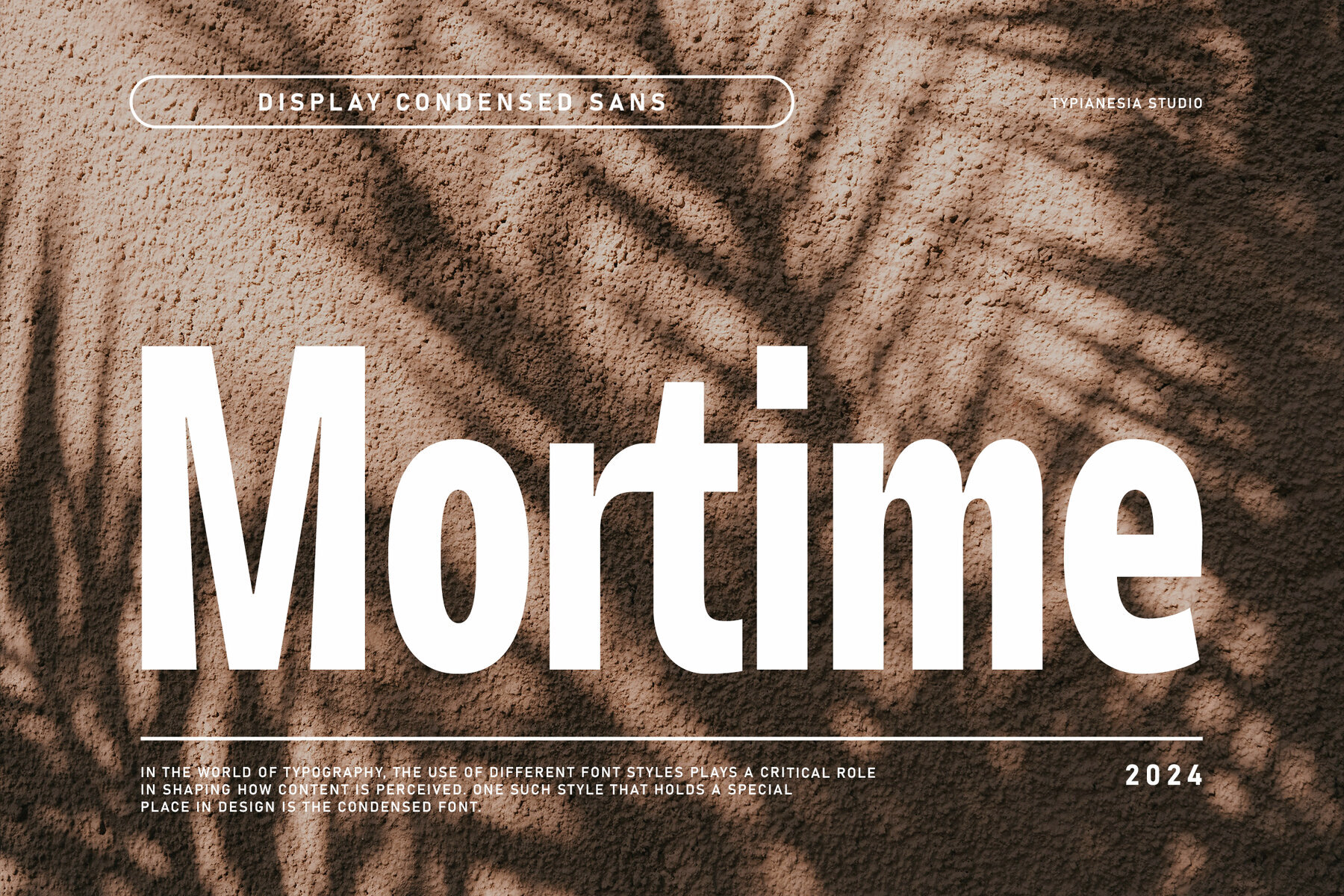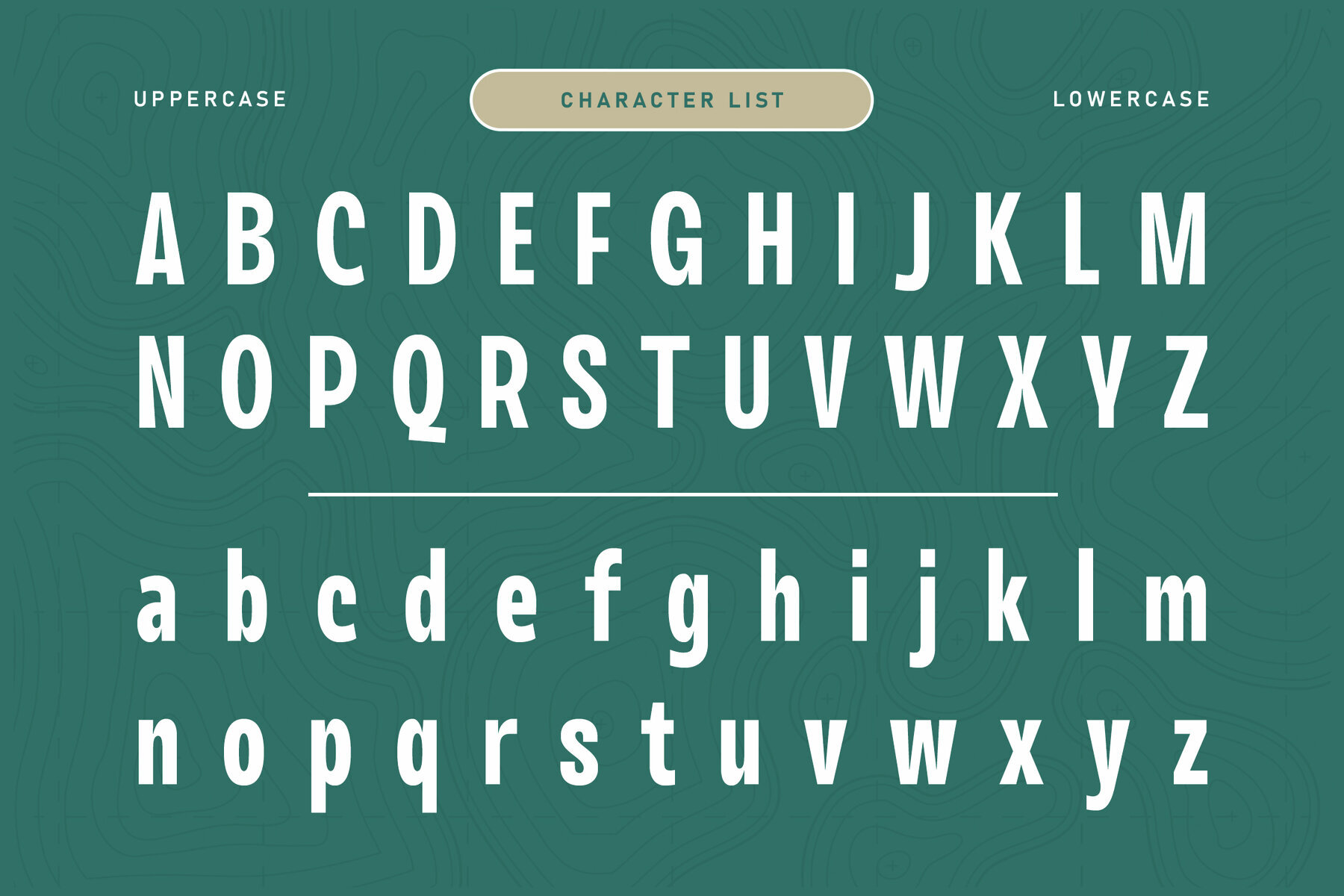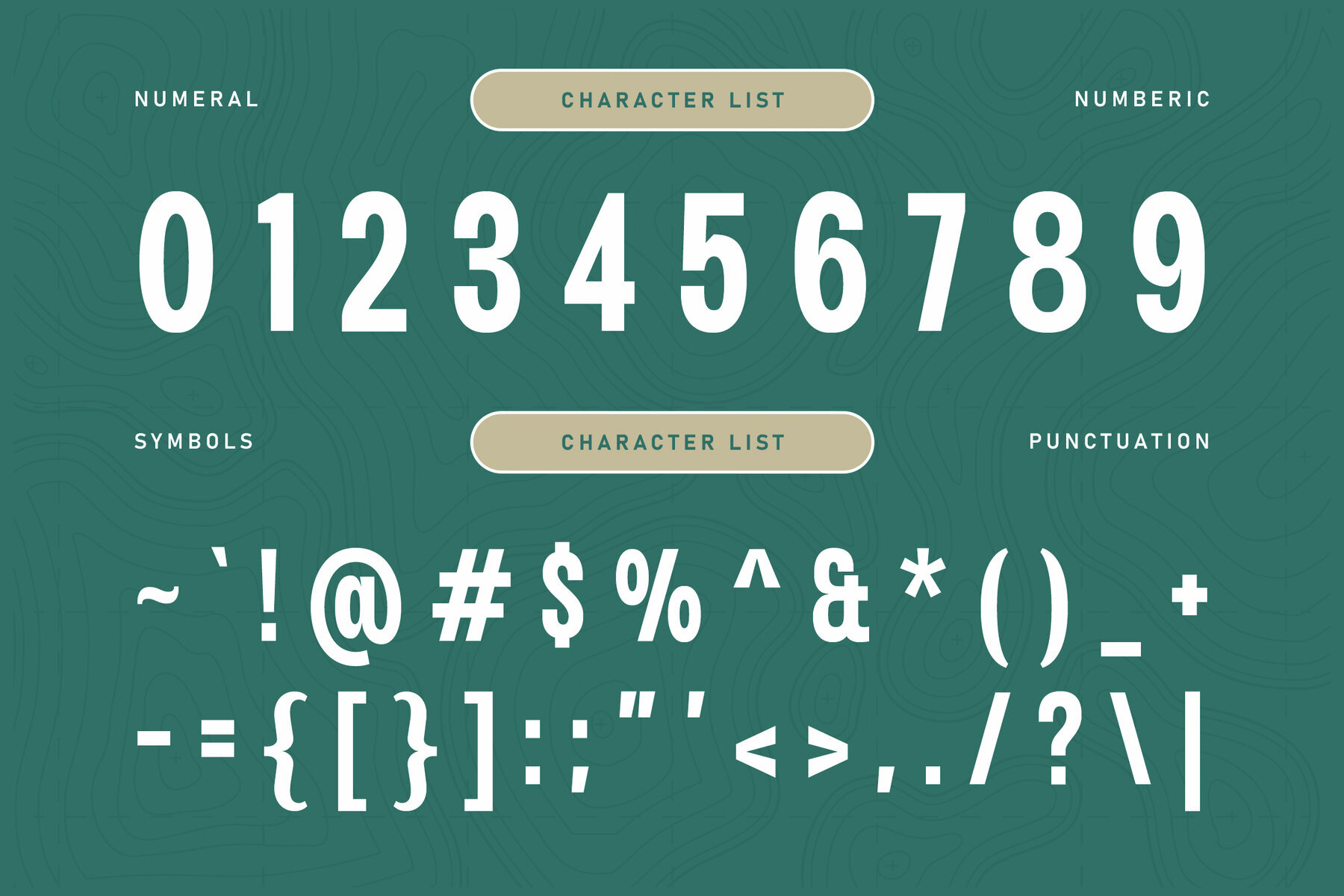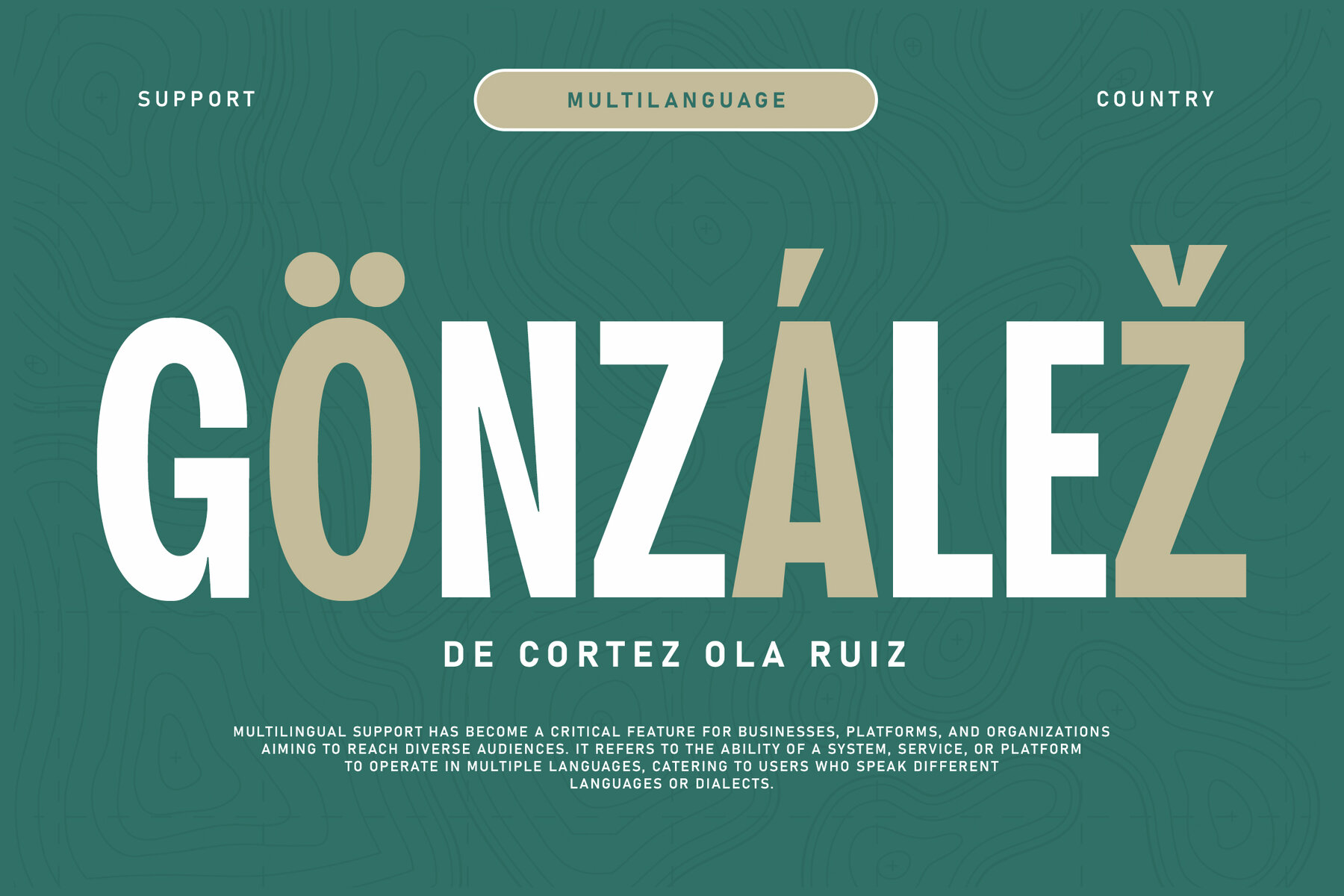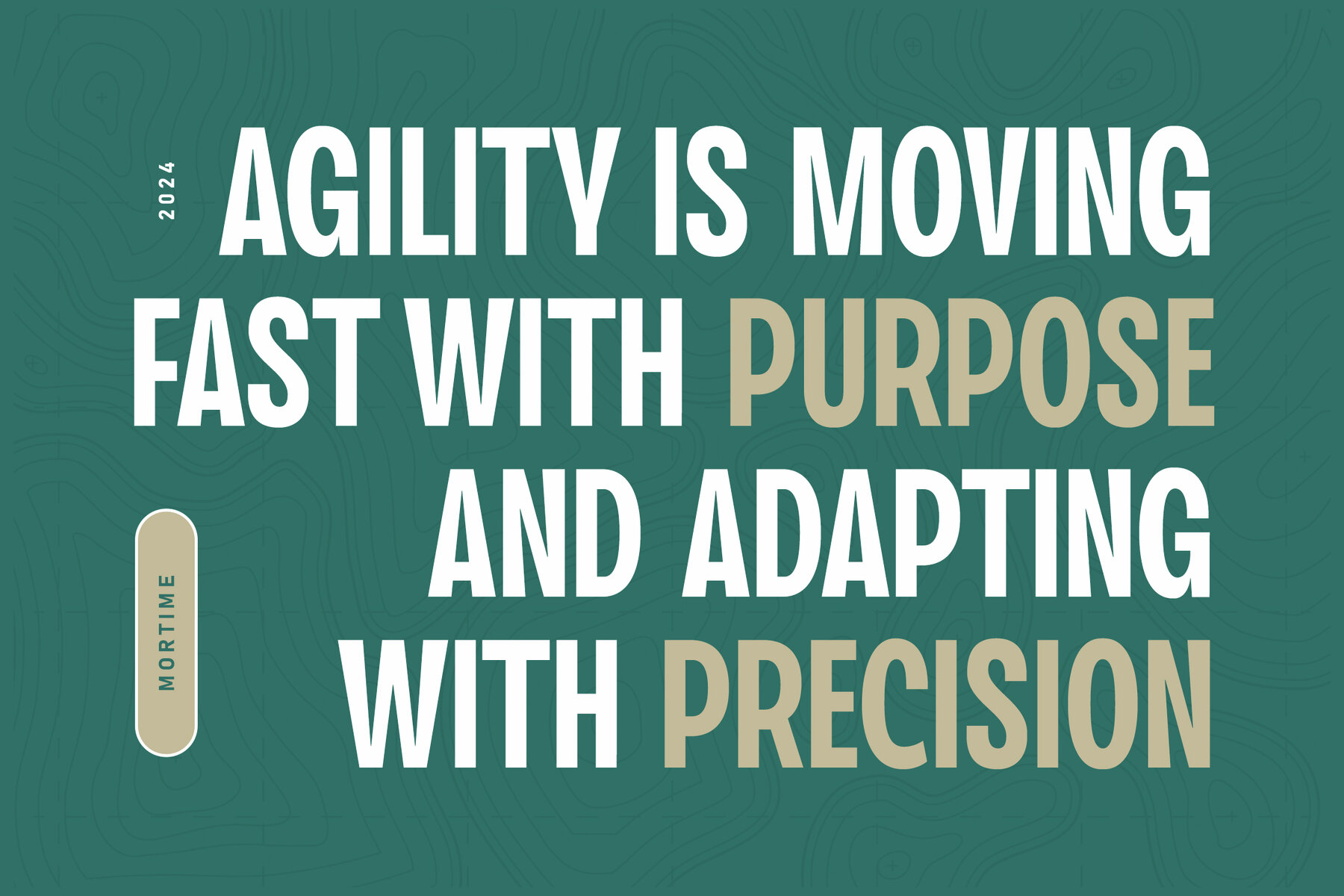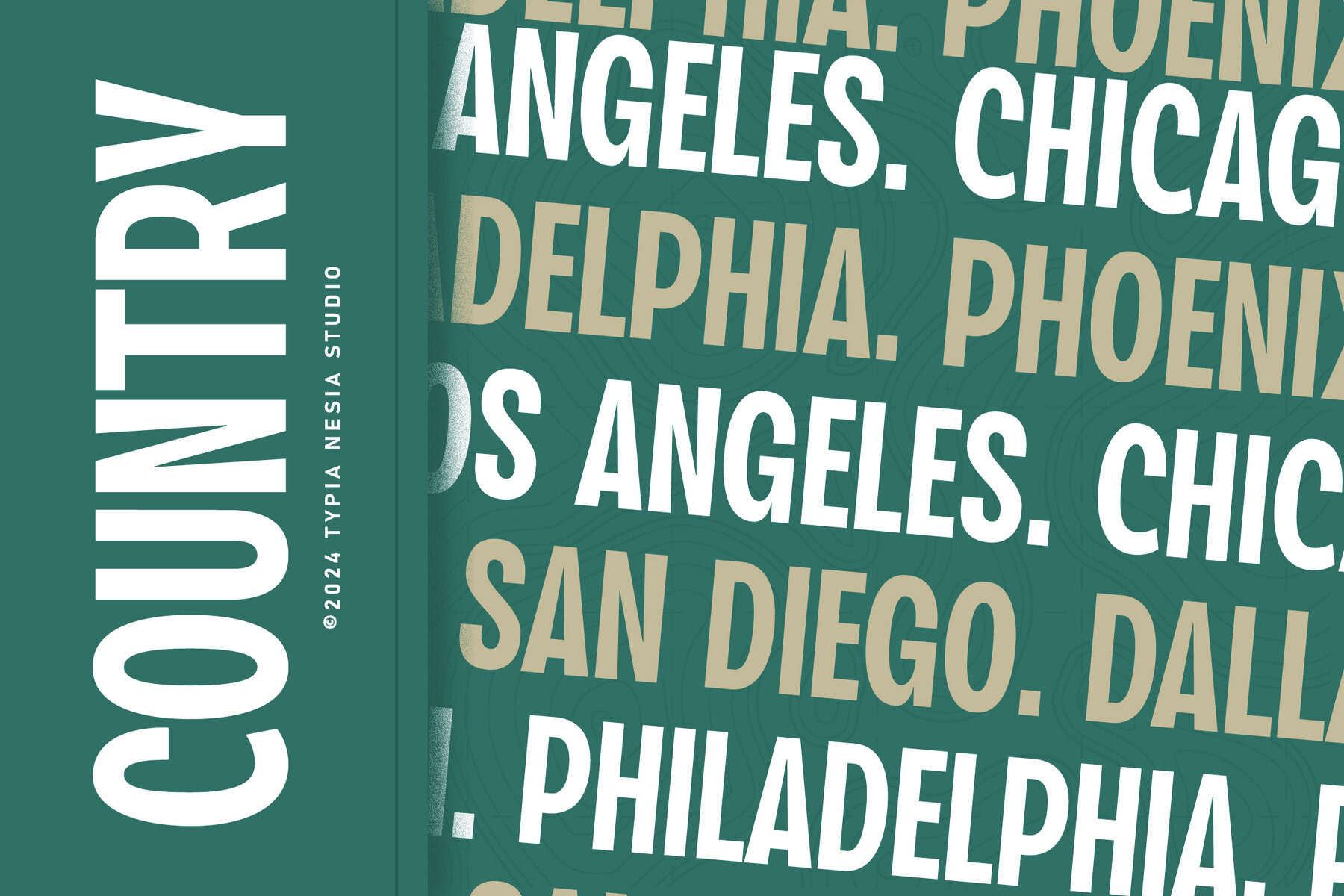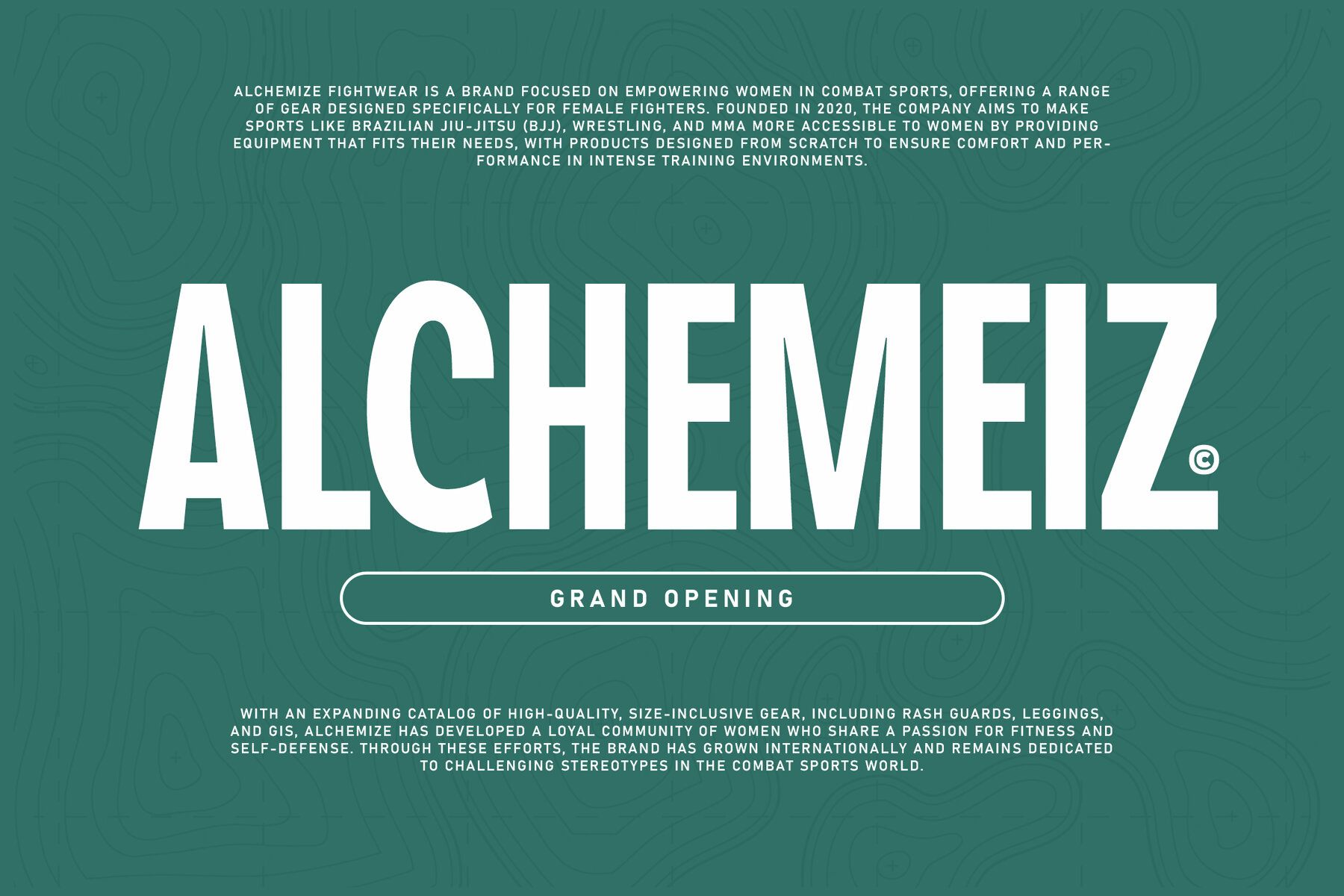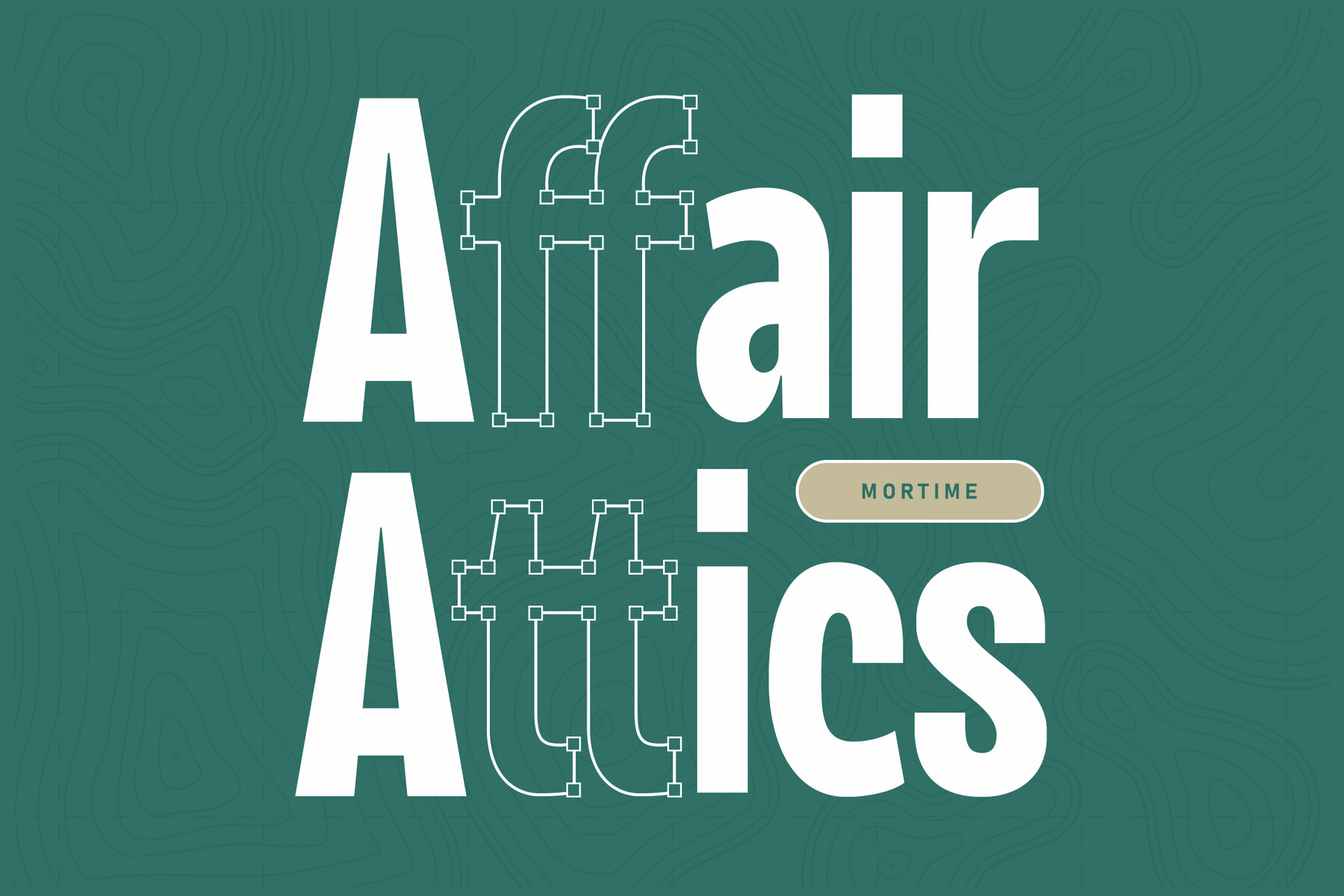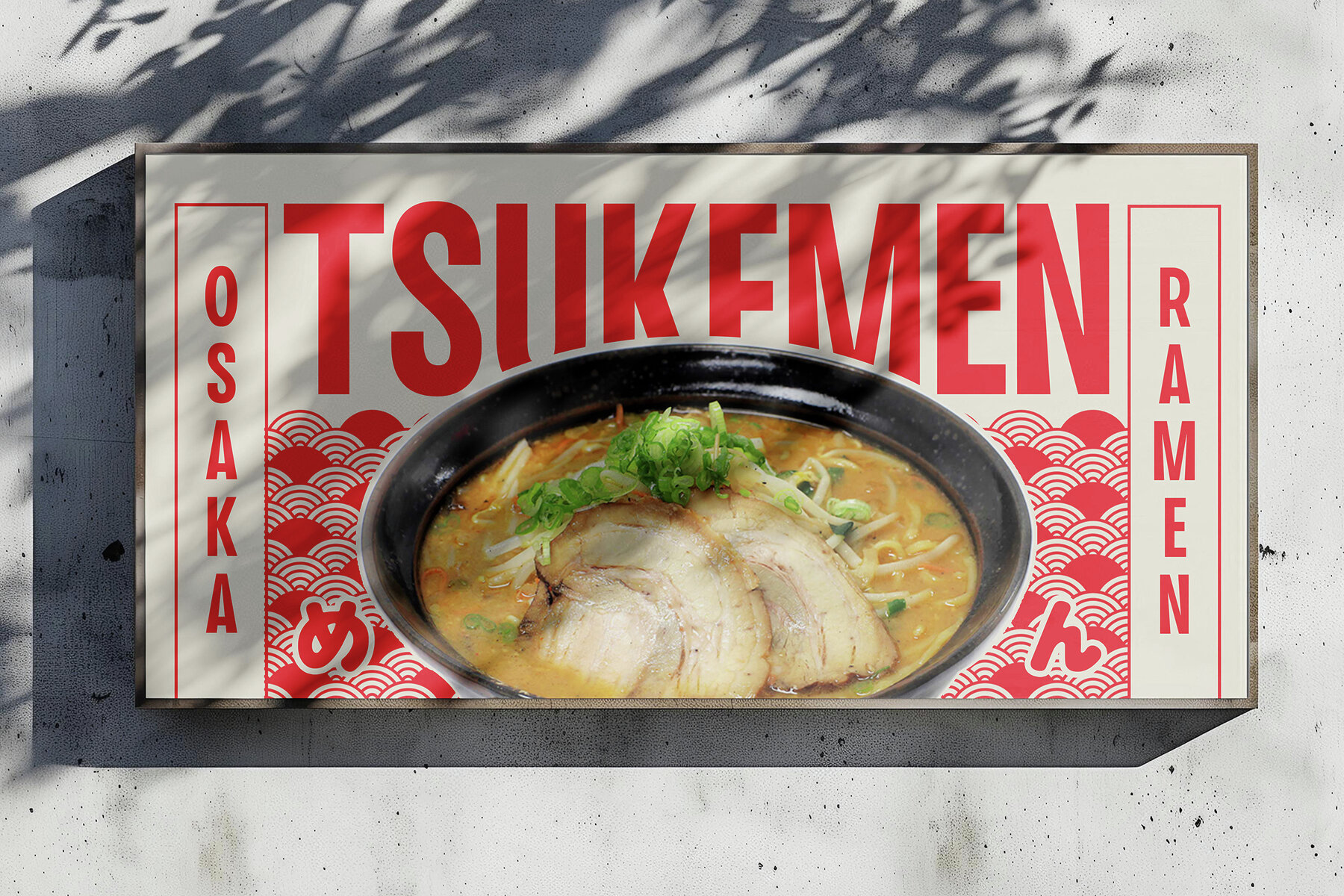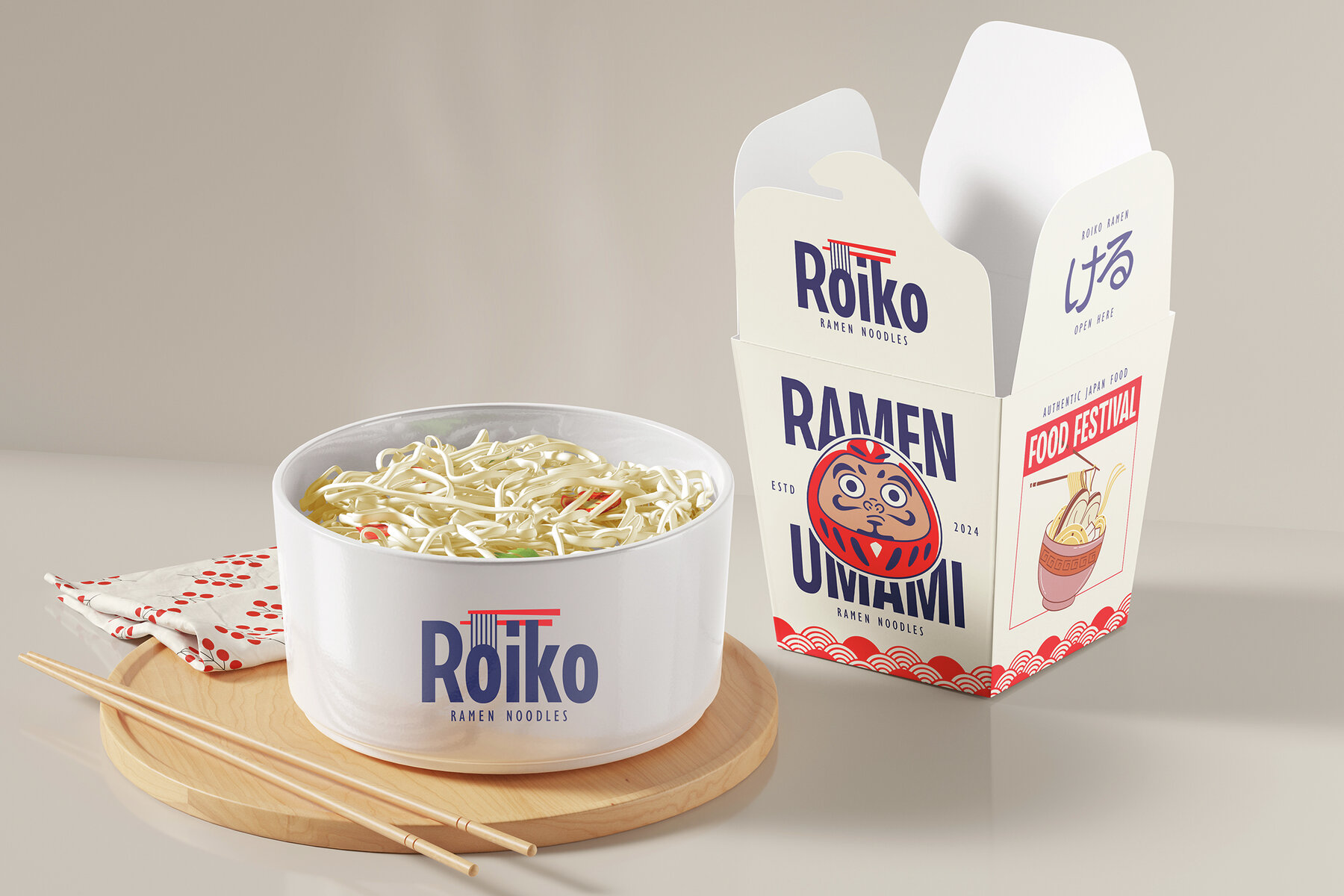
Mortime Font
Mortime Regular
Mortime is a contemporary condensed sans serif display font that combines minimalism with bold design elements. Its clean lines and compact structure make it an ideal choice for various creative projects, including magazine covers, posters, branding, and websites. This font excels in the fashion, editorial, tech, packaging, and lifestyle industries, offering a modern touch while maintaining readability and visual appeal.
With features like uppercase and lowercase letters, punctuation, numerals, multilingual support, and ligatures, Mortime provides designers with a comprehensive toolkit for achieving consistency and harmony in typography. Crafted for those who appreciate both style and functionality, Mortime delivers clarity and modernity in design, enhancing any project with a professional and polished look. Opt for Mortime to achieve a bold and modern aesthetic in your work.